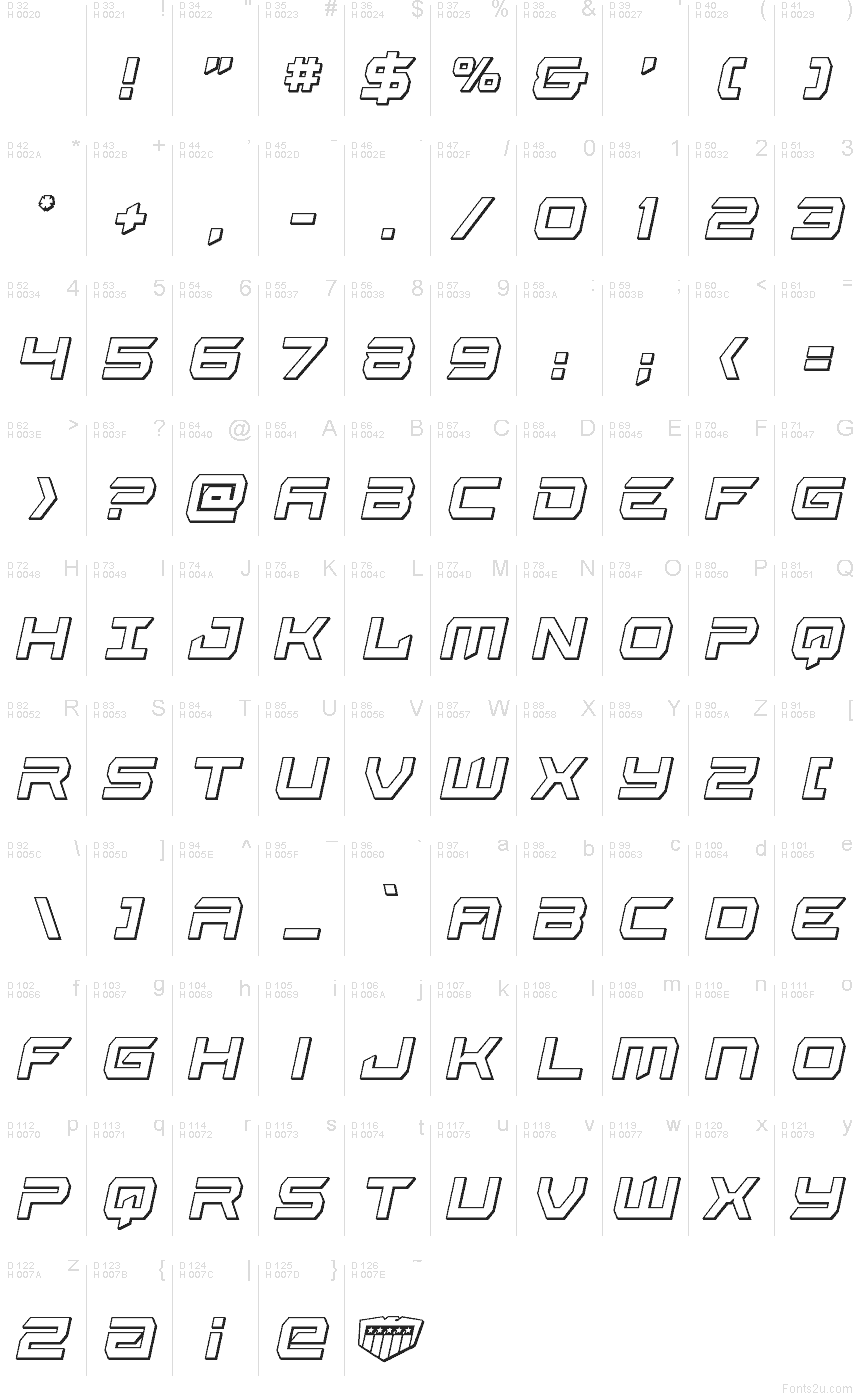
Jurist Dire 3D Italic
Jurist Dire 3D Italic font by Iconian Fonts is a free futuristic 3D display typeface. Its stretched, forward-leaning letters, crisp inner contour, and beveled edges create the feel of chrome panels sliding across a sleek machine. The tight rhythm and angular cuts give headlines a fast, high-tech energy, as if every word is racing across a digital dashboard.
Using Jurist Dire 3D Italic, your titles instantly read as sci-fi, cyber, or esports. This free font shines on game logos, streaming overlays, tech event posters, sci-fi book covers, YouTube thumbnails, and bold UI headers. Set it large to let the 3D lines breathe, and pair it with a clean, unobtrusive sans serif for supporting text so the main wordmark keeps the spotlight.